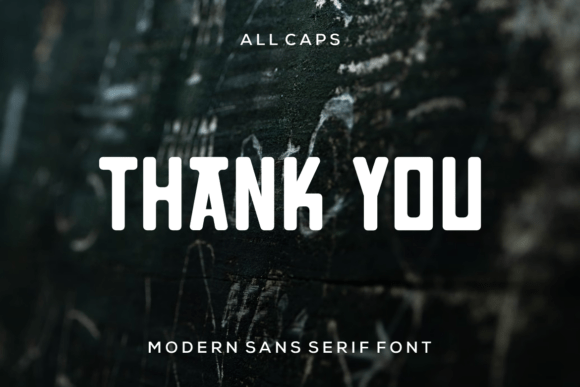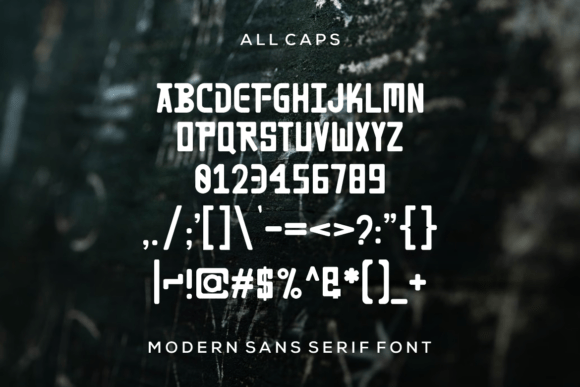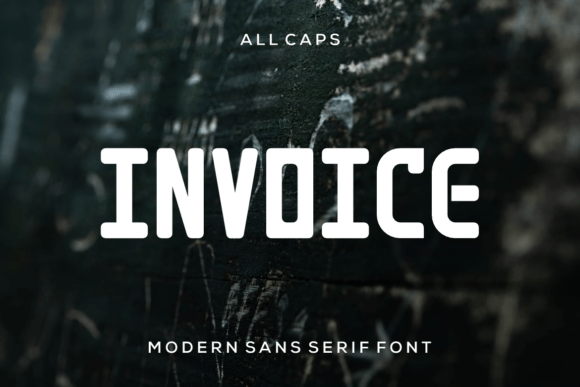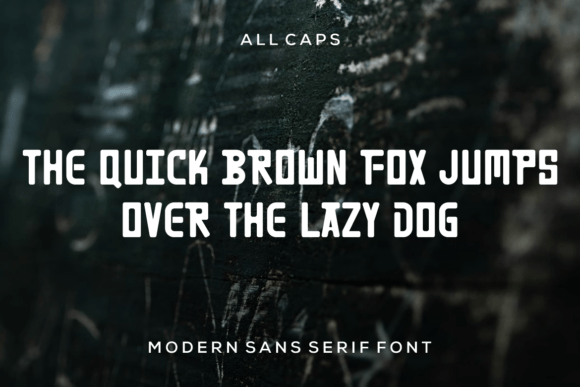
Introducing Calculation Font: A Modern Sans Serif with Playful Flair
In the world of typography, fonts play a crucial role in conveying messages, expressing creativity, and capturing attention. For designers and crafters, finding the perfect font can be a daunting task. However, if you’re looking for a modern sans serif font with a playful twist, look no further than Calculation Font. In this article, we’ll dive into the features, benefits, and uses of Calculation Font, and explore why it’s an ideal choice for attention-grabbing headlines, logos, and diverse design projects.
What is Calculation Font?
Calculation Font is a modern sans serif font and display font that boasts a playful flair. Its sleek and clean design makes it perfect for a wide range of applications, from digital media to print materials. The font’s versatility and readability make it an excellent choice for designers and crafters who want to add a dynamic touch to their message.
Key Features of Calculation Font
- Modern Sans Serif Design: Calculation Font features a modern sans serif design that exudes simplicity and elegance.
- Playful Flair: The font’s playful flair adds a touch of creativity and whimsy, making it perfect for attention-grabbing headlines and logos.
- Versatile and Readable: Calculation Font is designed to be versatile and readable in both digital and print formats, making it suitable for a wide range of applications.
- Dynamic Touch: The font adds a dynamic touch to your message, making it perfect for designers and crafters who want to create engaging and memorable designs.
Uses of Calculation Font
Calculation Font is an excellent choice for a variety of design projects, including:
- Attention-Grabbing Headlines: The font’s bold and playful design makes it perfect for attention-grabbing headlines that demand attention.
- Logos and Branding: Calculation Font’s modern and sleek design makes it an excellent choice for logos and branding materials that require a professional and creative edge.
- Diverse Design Projects: The font’s versatility makes it suitable for a wide range of design projects, from brochures and posters to business cards and website headers.
Benefits of Using Calculation Font
Using Calculation Font in your design projects offers several benefits, including:
- Improved Readability: The font’s clean and simple design ensures excellent readability, even in small sizes.
- Increased Creativity: Calculation Font’s playful flair adds a touch of creativity to your designs, making them more engaging and memorable.
- Professional Edge: The font’s modern and sleek design gives your designs a professional edge, making them perfect for businesses and brands.
Tips for Using Calculation Font
To get the most out of Calculation Font, here are some tips to keep in mind:
- Use it Boldly: Calculation Font is designed to make a statement, so don’t be afraid to use it boldly and creatively.
- Experiment with Colors: The font’s versatility makes it suitable for a wide range of color schemes, so experiment with different colors to find the perfect combination.
- Pair it with Other Fonts: Calculation Font pairs well with other fonts, so don’t be afraid to experiment with different font combinations to create a unique look.
In conclusion, Calculation Font is a modern sans serif font with a playful flair that’s perfect for attention-grabbing headlines, logos, and diverse design projects. Its versatility, readability, and dynamic touch make it an excellent choice for designers and crafters who want to add a creative edge to their message. With its clean and simple design, Calculation Font is sure to improve readability, increase creativity, and give your designs a professional edge.